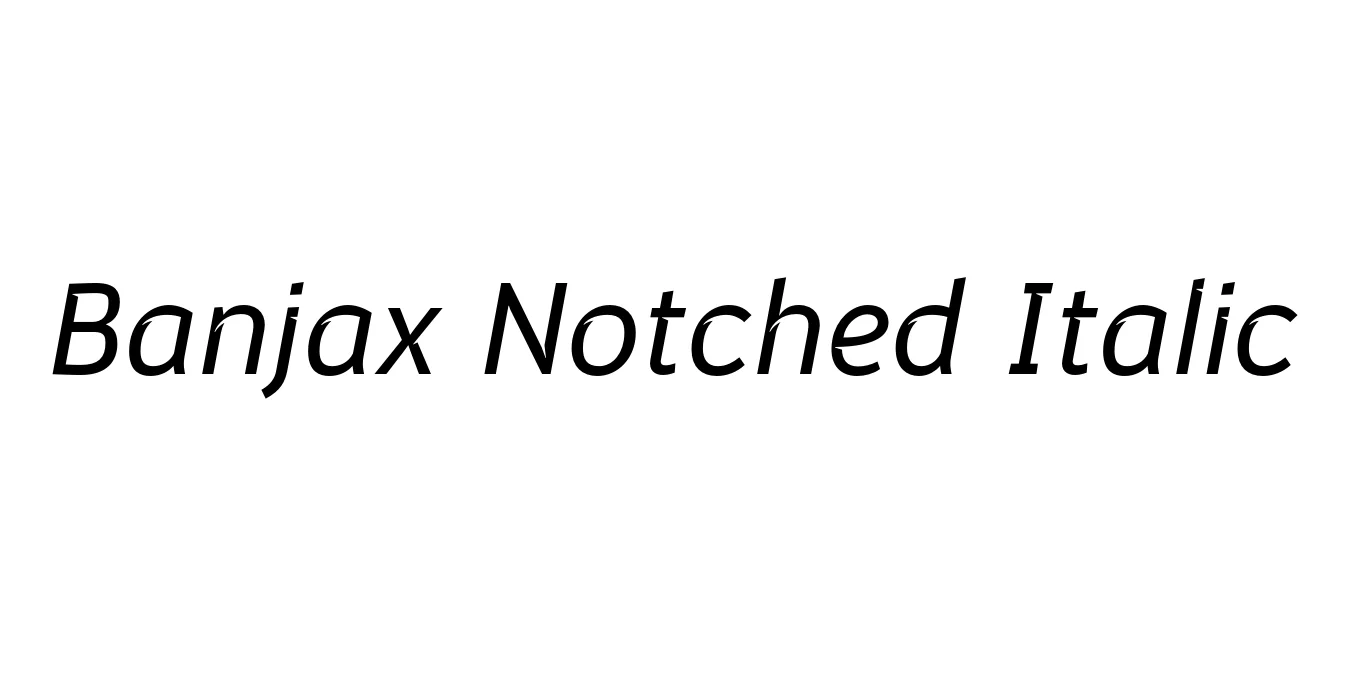
Banjax Notched Italic
Designed by Keith Bates
| Category | Display / Sans Serif |
| Designer | Keith Bates |
Banjax Notched Italic is a striking geometric typeface developed by Keith Bates of K-Type. This font is a stylized evolution of the standard Banjax family, characterized by unique structural gaps or 'notches' that lend it an industrial and stencil-like appearance. The addition of the italic slant provides a sense of speed and momentum, making it highly effective for contemporary design projects that require a sense of precision and forward-thinking energy.
The typeface excels in environments where a modern and technical aesthetic is desired. Its clean, sharp lines and distinct apertures ensure that it remains legible while making a bold visual statement. It is widely used for branding, editorial layouts, and high-impact displays, successfully bridging the gap between mid-century industrial signage and modern digital interface design.
Banjax Notched Italic Best Uses
Ideal for creating sharp, tech-oriented brand identities and corporate logos.
Excellent for bold, attention-grabbing titles in magazines and digital posters.
Perfect for sports branding and industrial-themed streetwear graphics.
Works well for futuristic or cyber-themed game menus and digital displays.